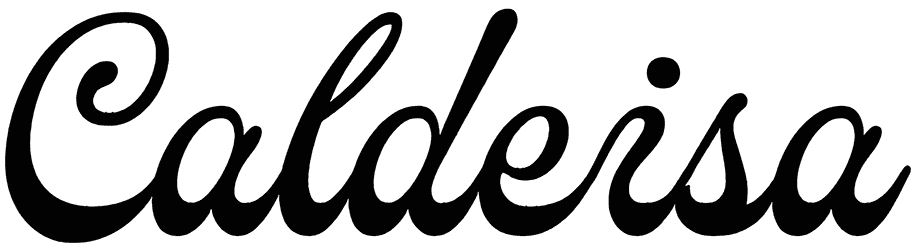
Caldeisa Font
You probably know the effect of handwritten words in communicating well with followers, and this script font can provide such a style for your project. Caldeisa font will give a kind of classic and curvy form to letters. Try it for your future design, like a school team name, and spotlight your creative talent.